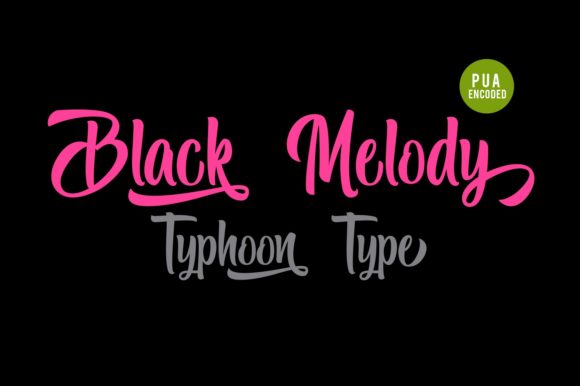
Black Melody Font
About Black Melody Font
The Black Melody is a striking typeface with an elegant style.
It’s perfect for logos, name tags, advertising, product packaging, clothing, social media & greeting cards.